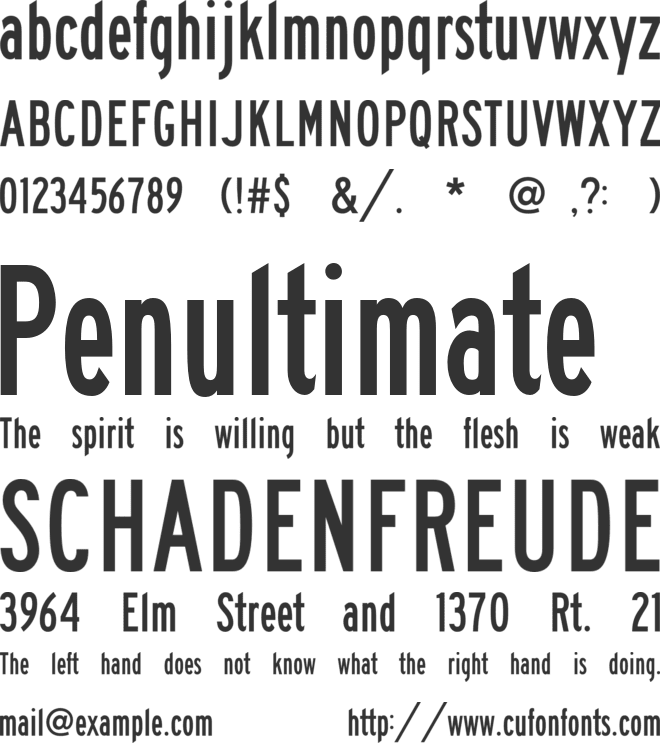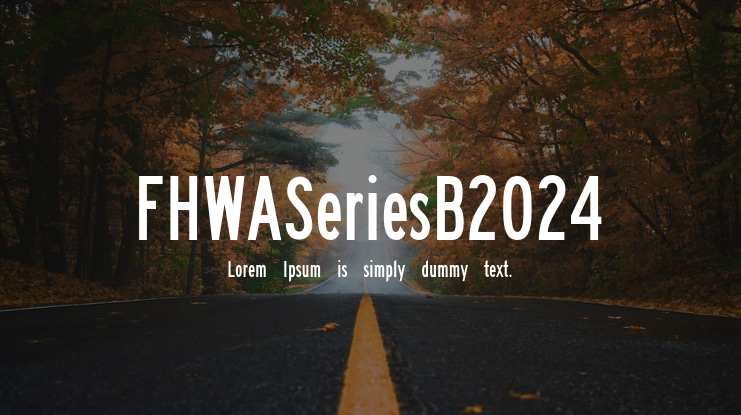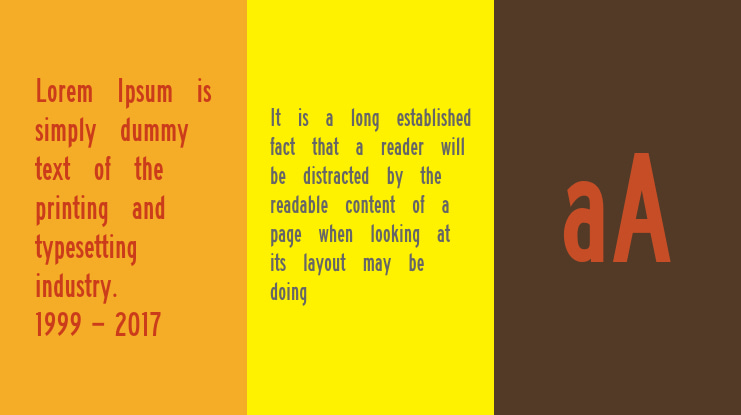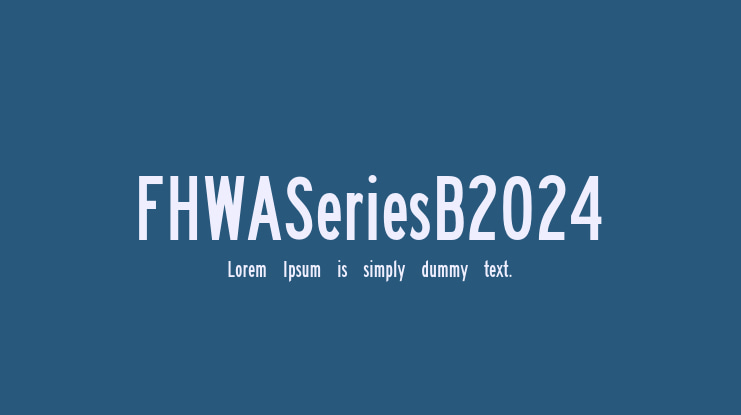
FHWASeriesB2024 Font Family
Suitable for the creation of official road, street, and highway signage in the US. Public domain outlines from the Federal Highway Administration. Includes recent updates to Β’, $, -, +, and :